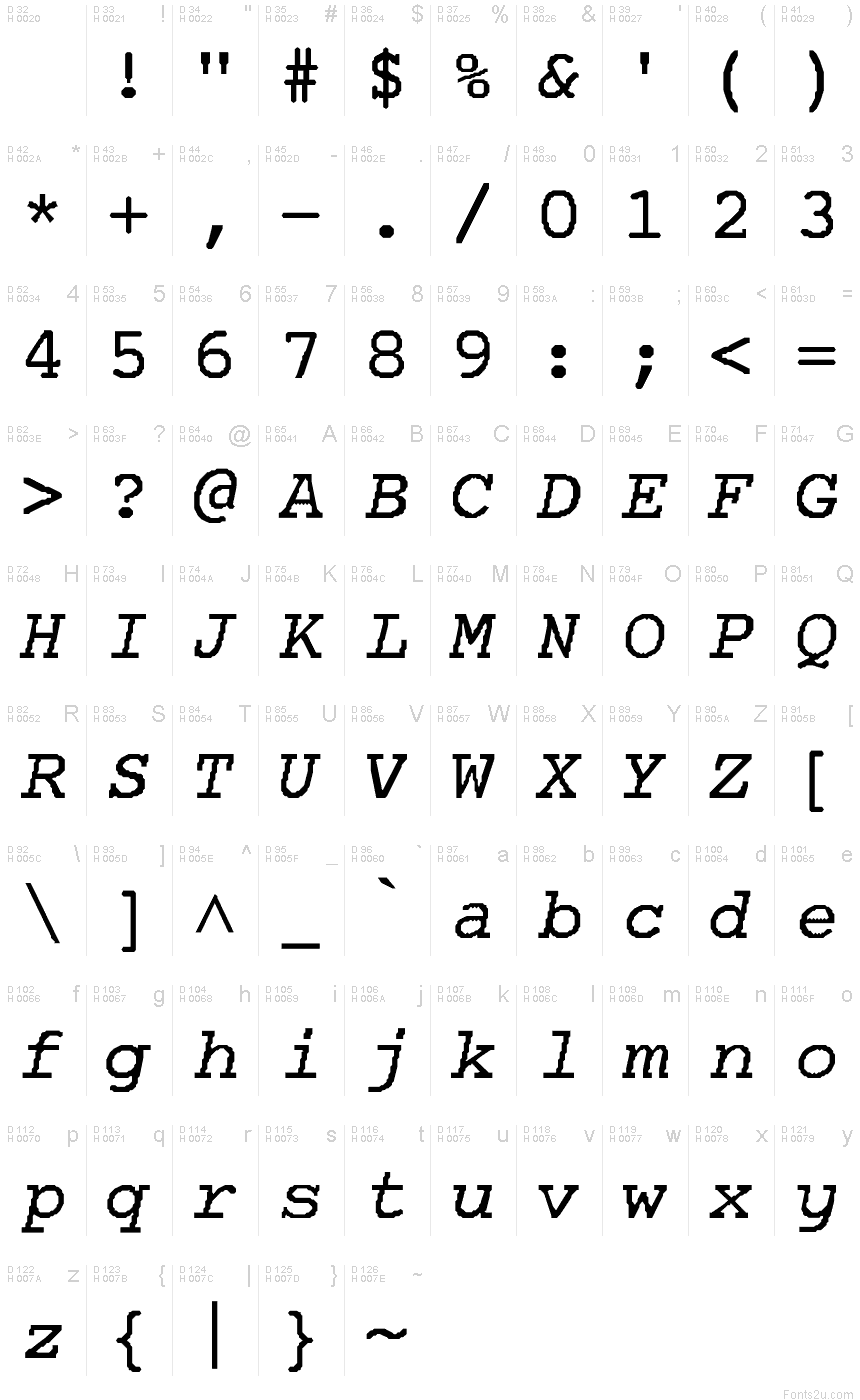
APL Regular
This font is a close approximation of APL (A Programming Language) typeface: historically, the APL font has been distinctive, with uppercase italic alphabetic characters and upright numerals and symbols. Most vendors continue to display the APL character set in a custom font. A Selectric typeball was specially designed to write a linear representation of APL language.